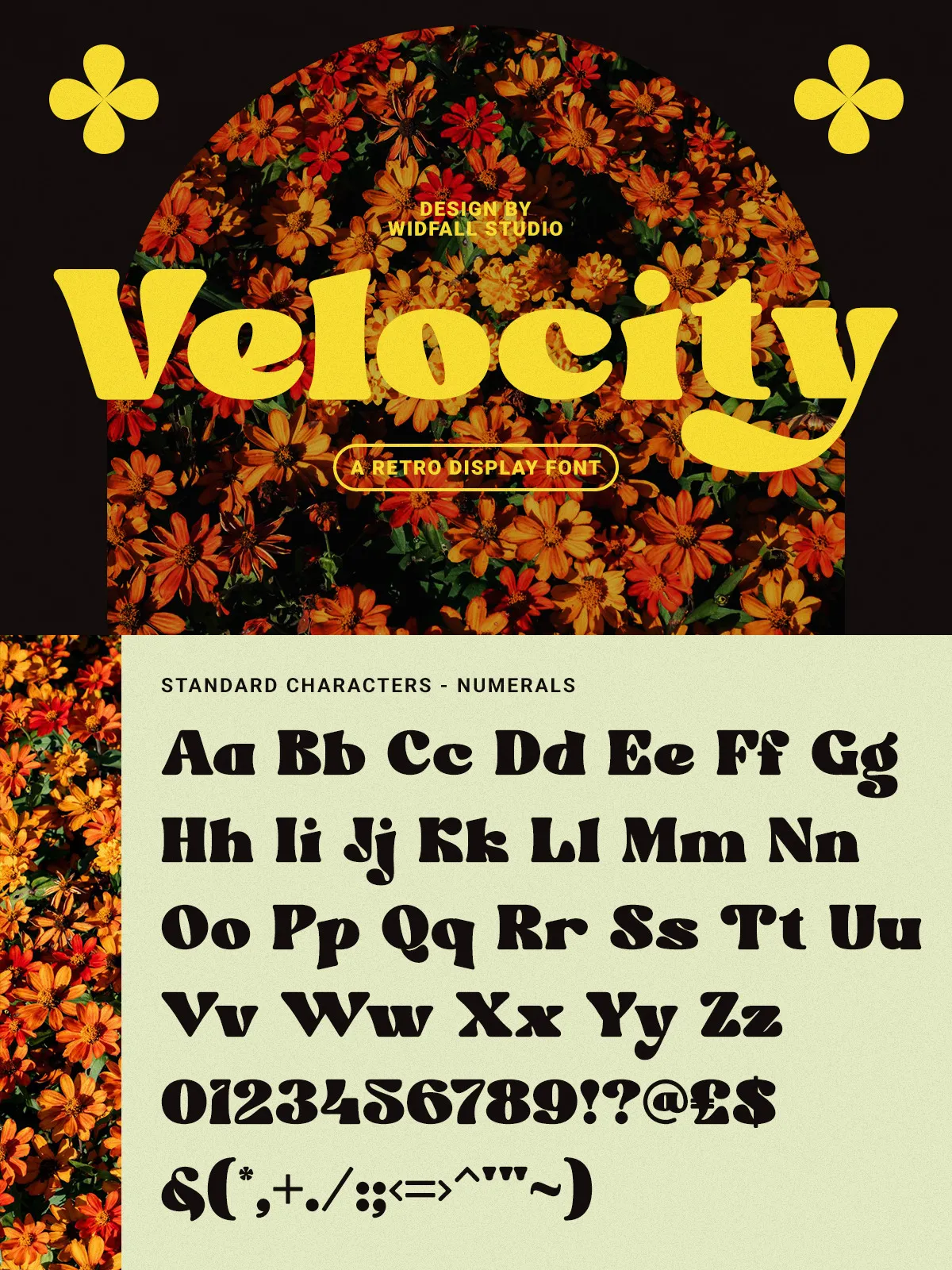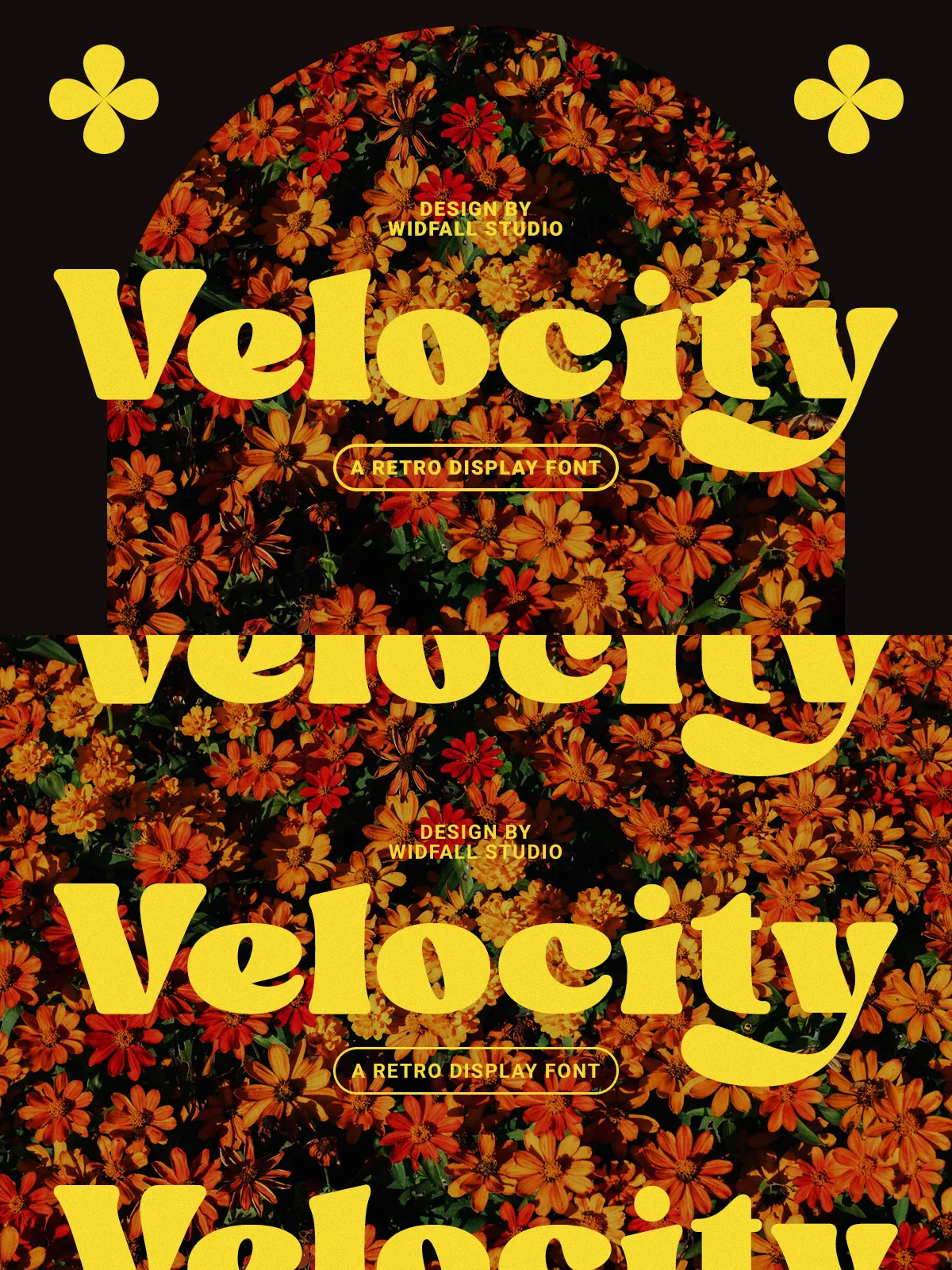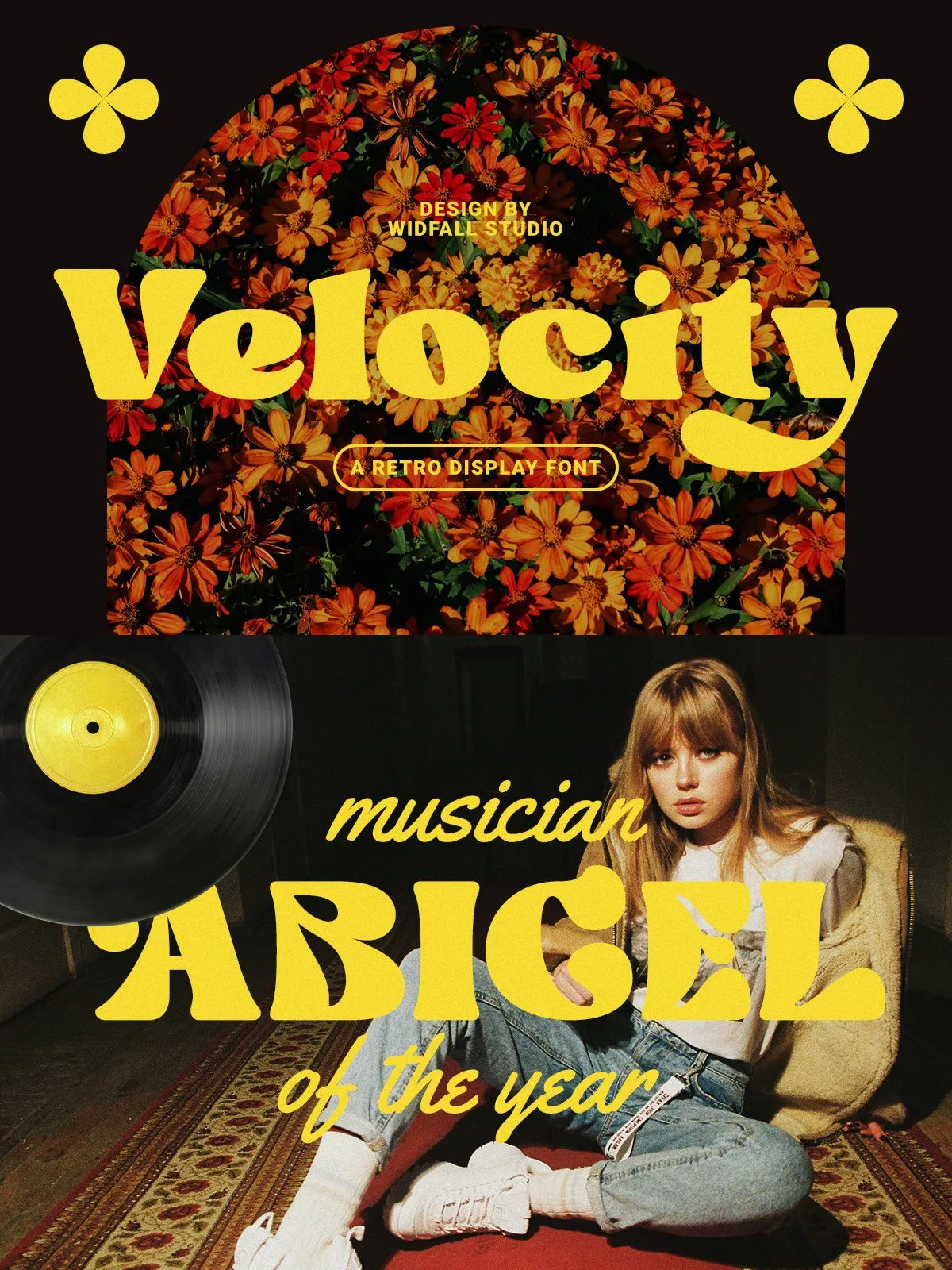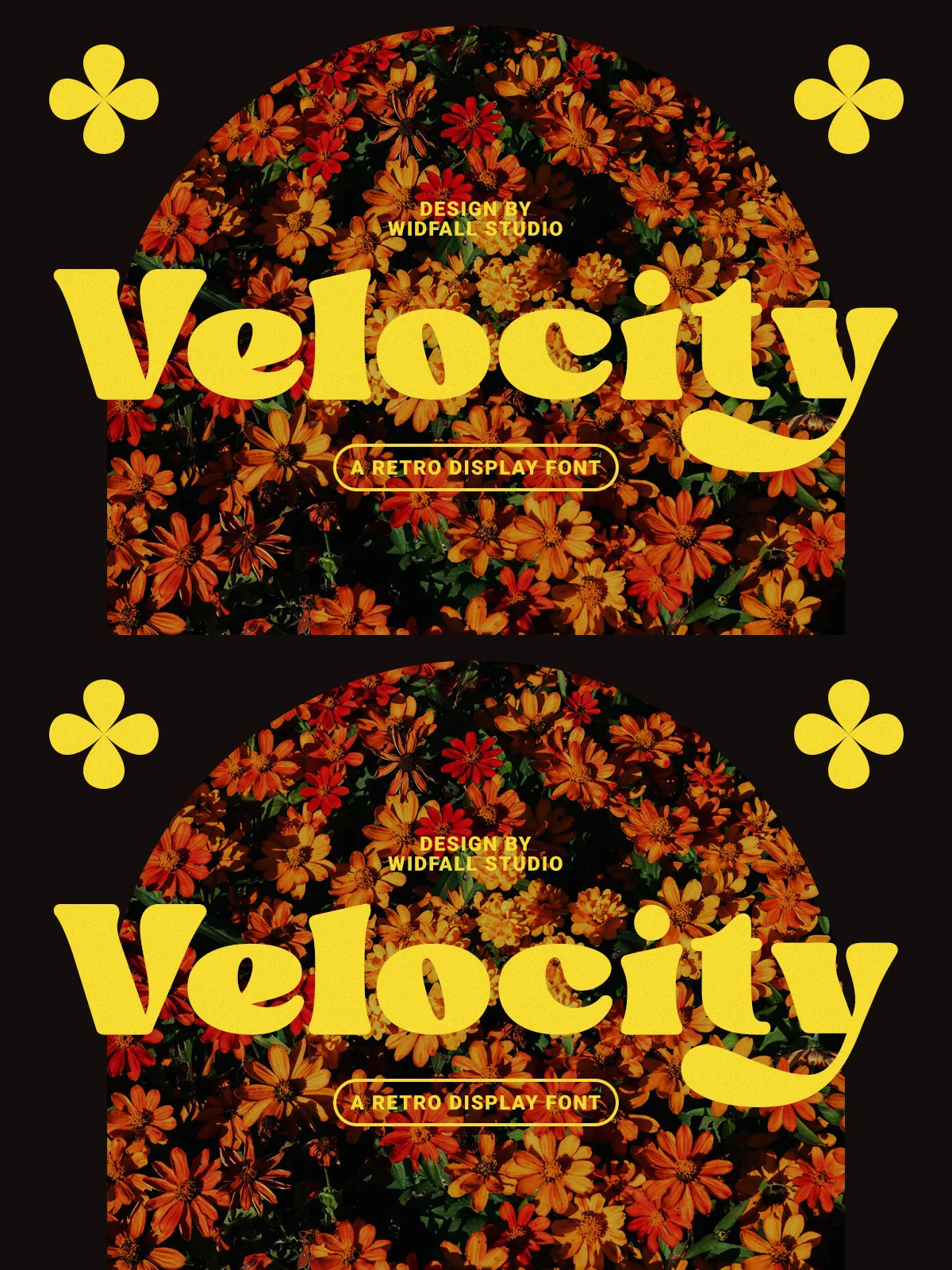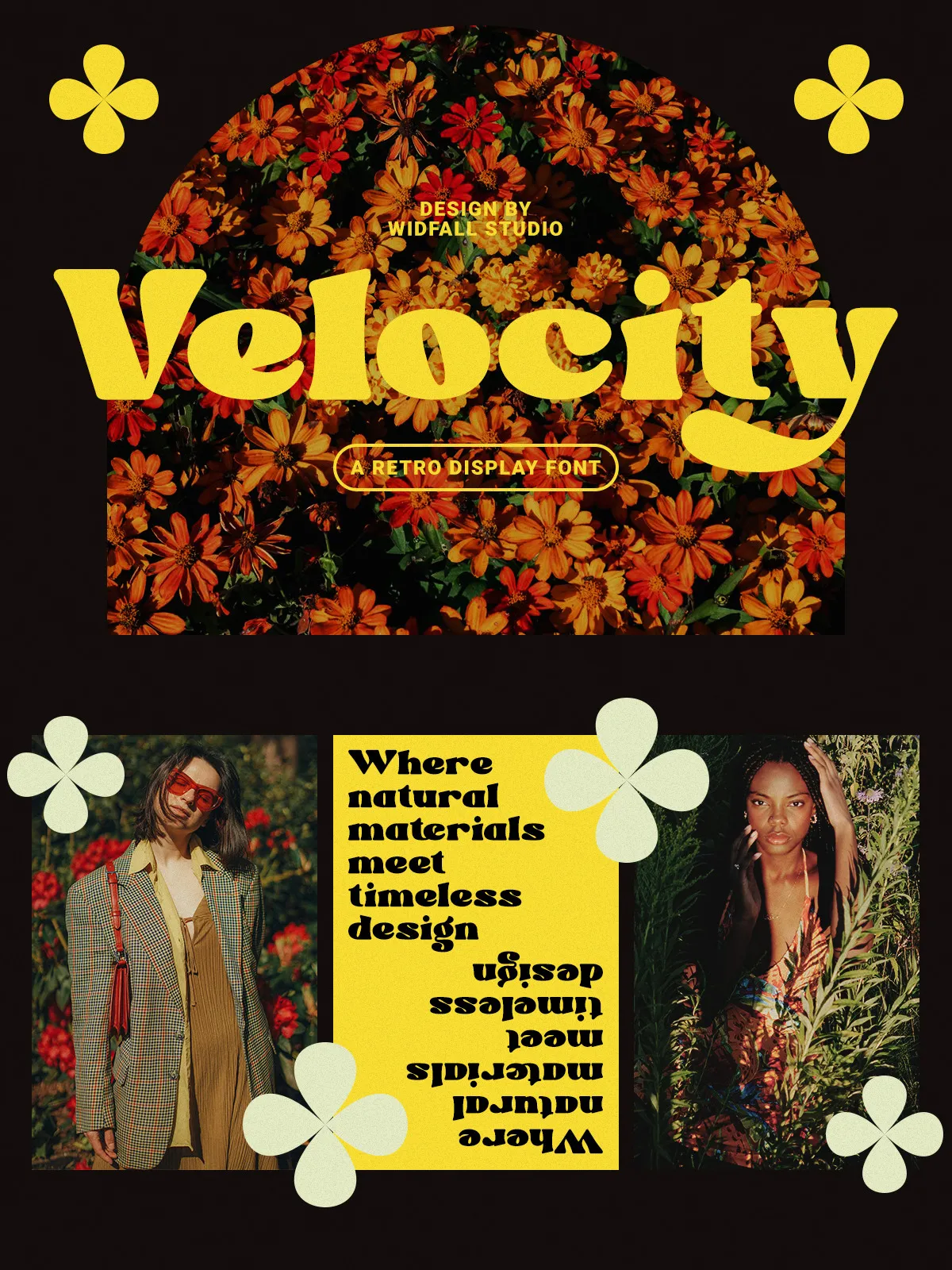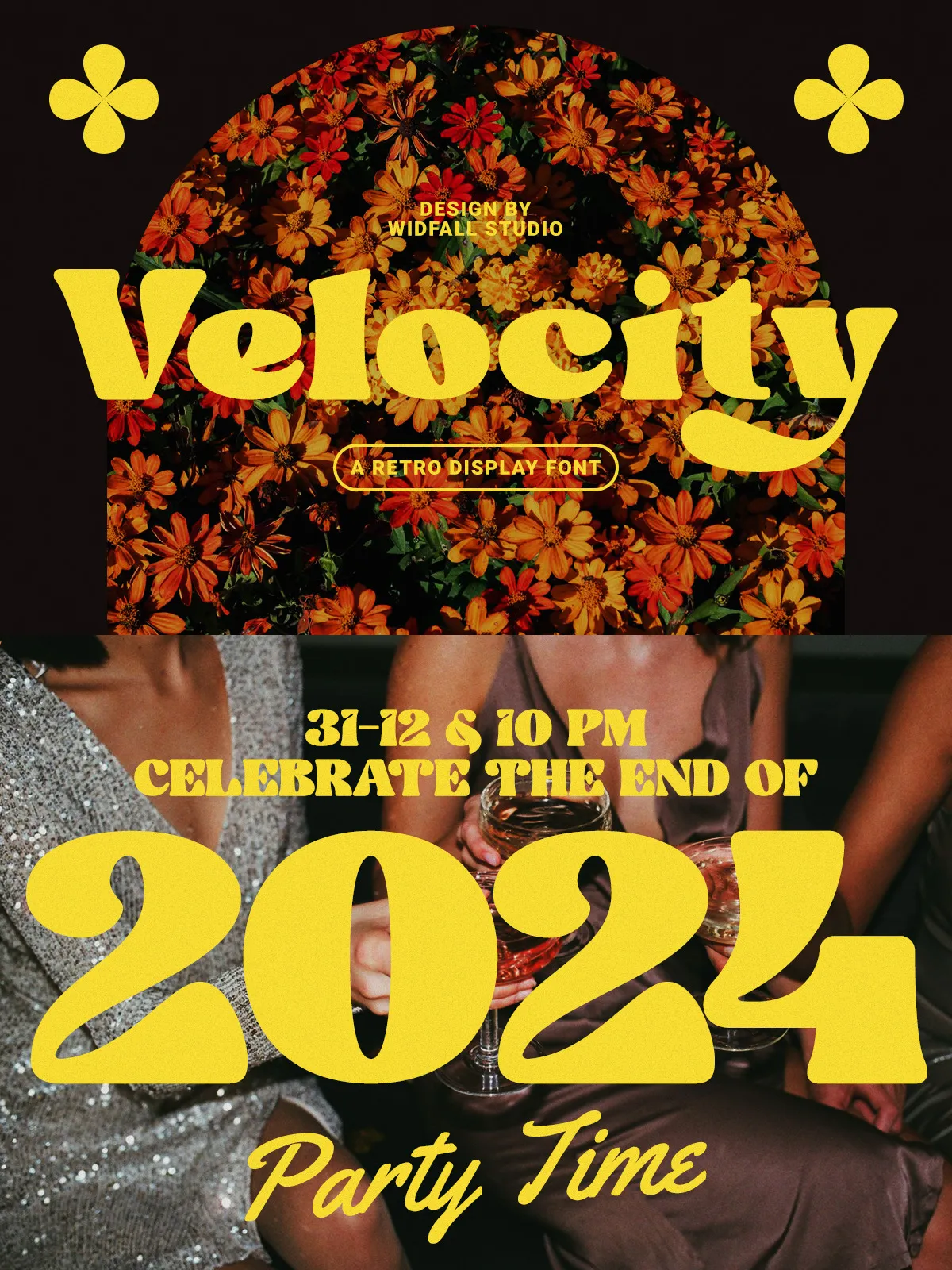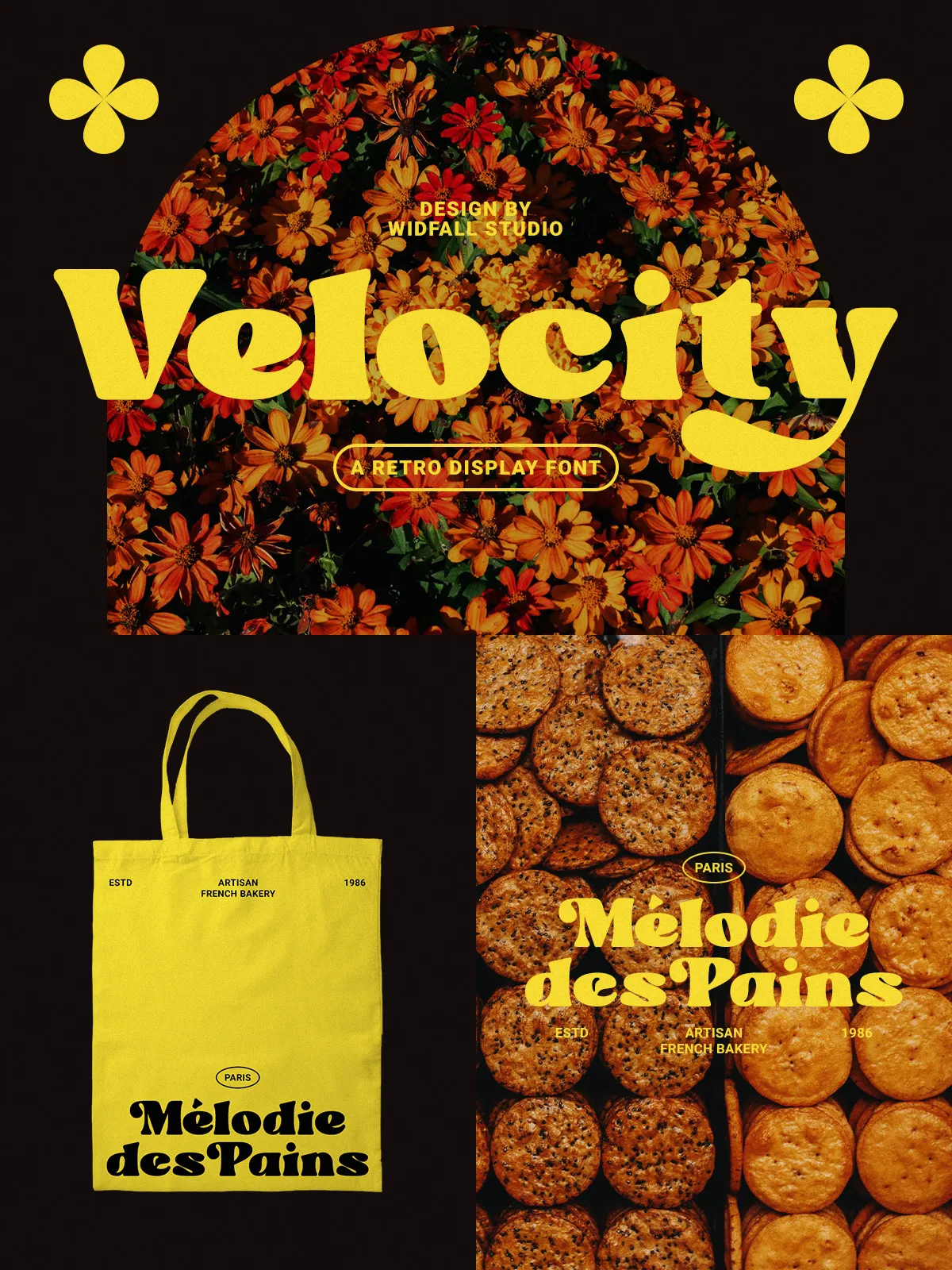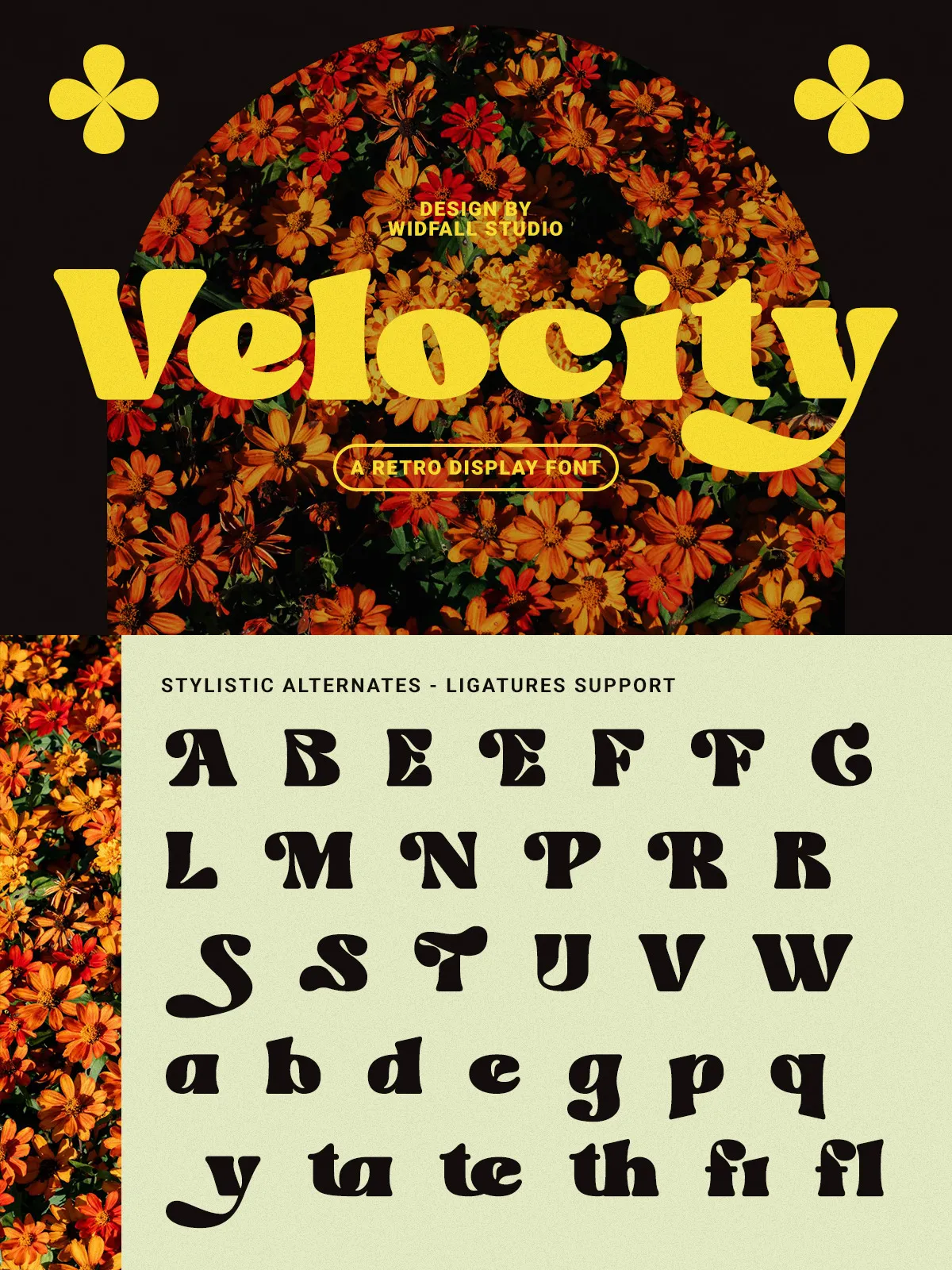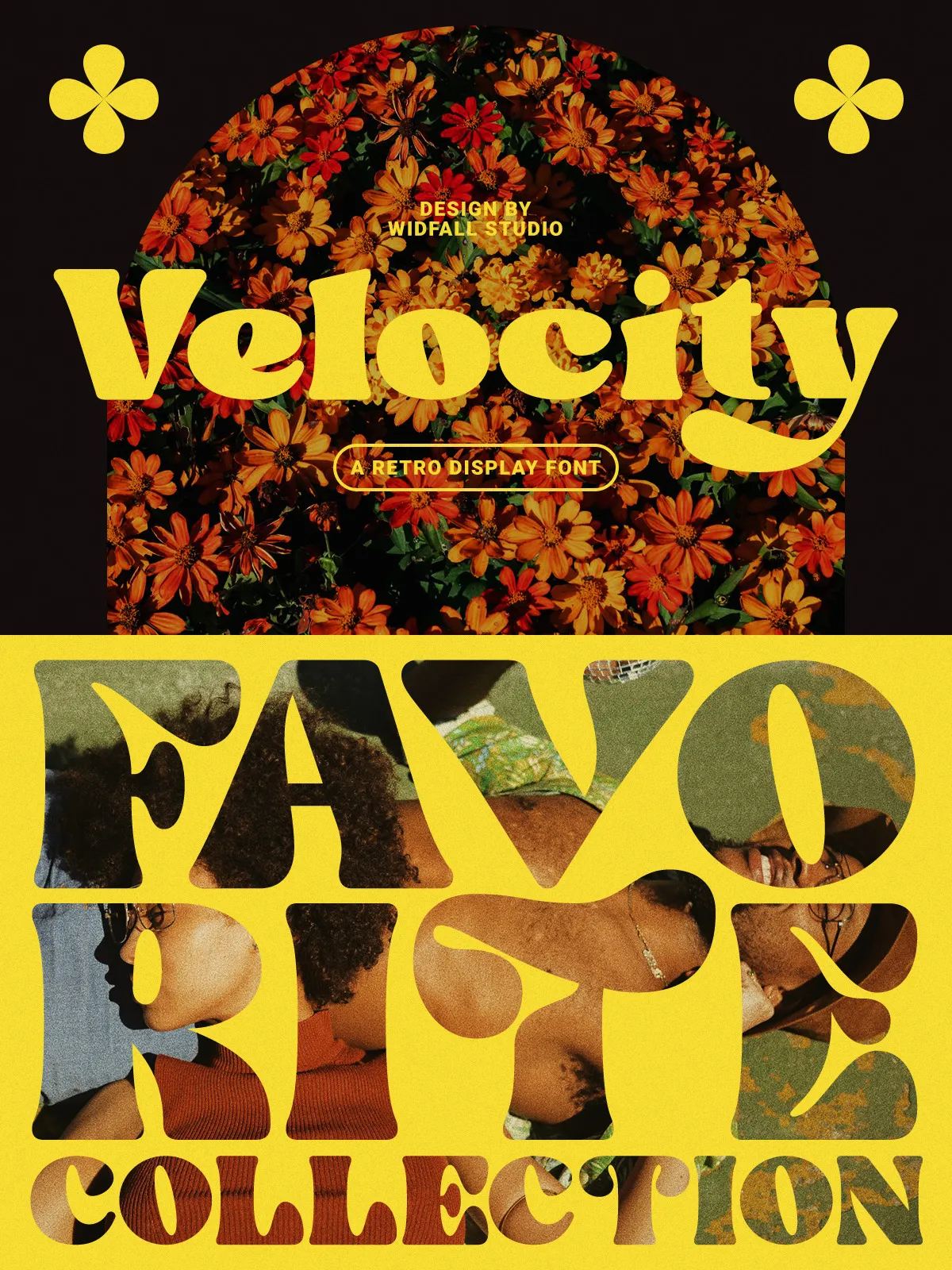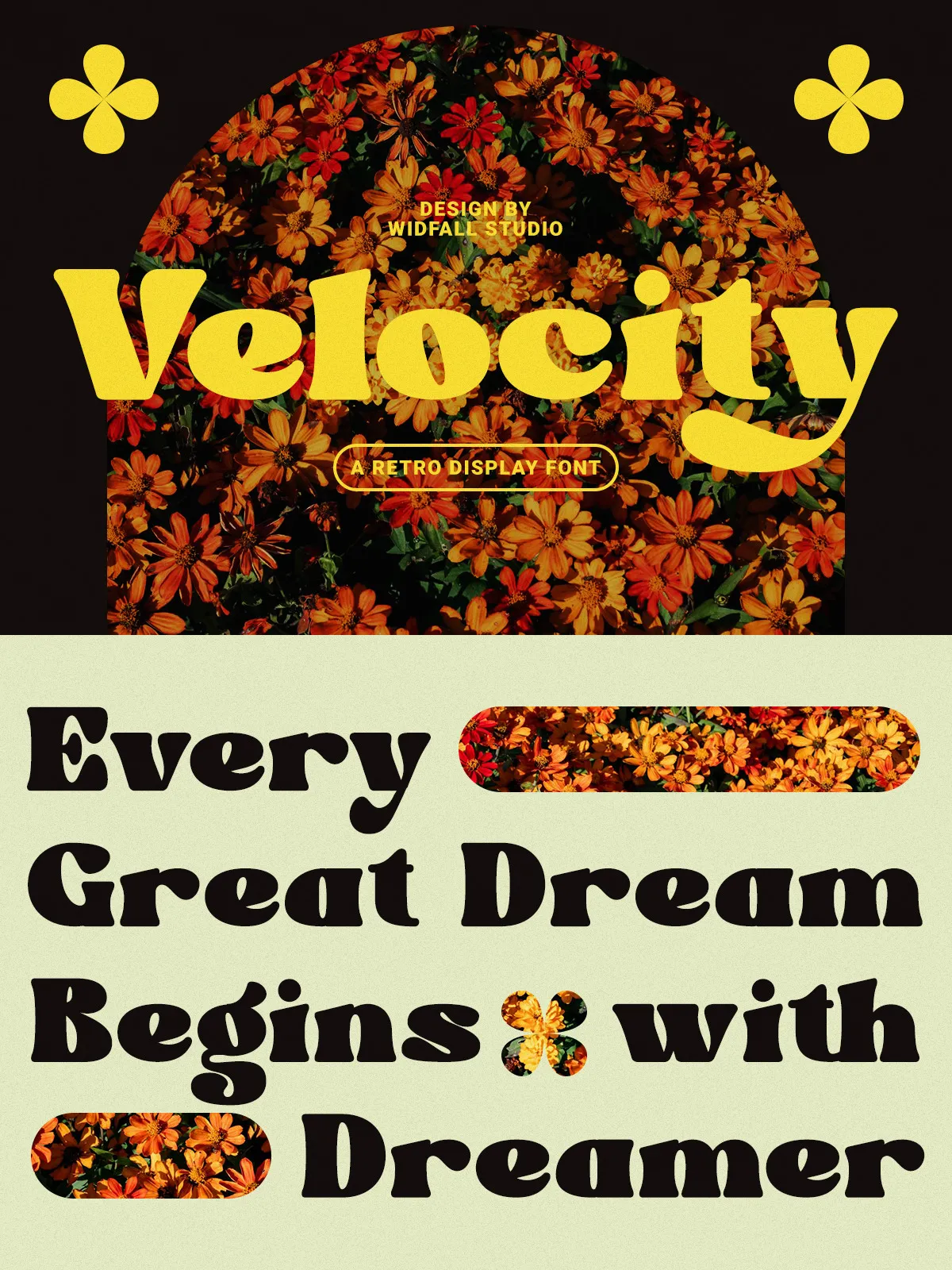
Velocity is a dynamic retro display font designed to bring motion, character, and vintage energy to modern designs. Created by Windfall Studio, Velocity features sleek lines and retro-inspired curves that emphasize speed and impact. Use Velocity to craft bold headlines, memorable logos, striking posters, and distinctive branding that demands attention.
- Bold Display Style: Strong character shapes and high-contrast strokes make headlines pop and logos stand out.
- Retro-Inspired Forms: Curved terminals and vintage proportions nod to classic display typography while remaining contemporary.
- Alternates & Ligatures: Multiple alternates and stylistic ligatures add flexibility for custom logotypes and unique wordmarks.
- Full Character Set: Uppercase, lowercase, numerals, punctuation, accented characters for multilingual projects.
- Multilingual Support: Extended Latin support enables use across many languages and markets.
Design Personality
Energy and Movement
Velocity channels motion through elongated strokes and purposeful angles. The letterforms read as active and confident, making them ideal where visual momentum matters—sports branding, event posters, and dynamic logos.
Retro Modern Balance
Velocity balances nostalgic cues with contemporary cleanliness. The result reads both classic and fresh, allowing designers to evoke vintage appeal without feeling dated.
Practical Applications
Headlines & Posters
Deploy Velocity for large-format headlines and posters where distinct personality and legibility at scale are required. The font’s strong counters and visible shapes translate well to print and digital billboards.
Logos & Branding
Use alternates and ligatures to build custom wordmarks that read uniquely. Velocity’s stylized terminals and tight kerning produce memorable logotypes that scale across identity systems.
Packaging & Apparel
Velocity performs on product packaging and sport apparel, adding retro flair with modern execution. The font’s bold presence suits labels, tees, and promotional swag.
Pairing Recommendations
Sans Companion
Pair Velocity with a neutral sans-serif (e.g., a humanist or neo-grotesque) when you need clean body copy to balance the display headline. The contrast highlights Velocity’s personality without competing for attention.
Subtle Serif
Combine Velocity with a low-contrast serif for editorial spreads that require vintage warmth with modern structure. Use the serif for supporting captions and long copy.